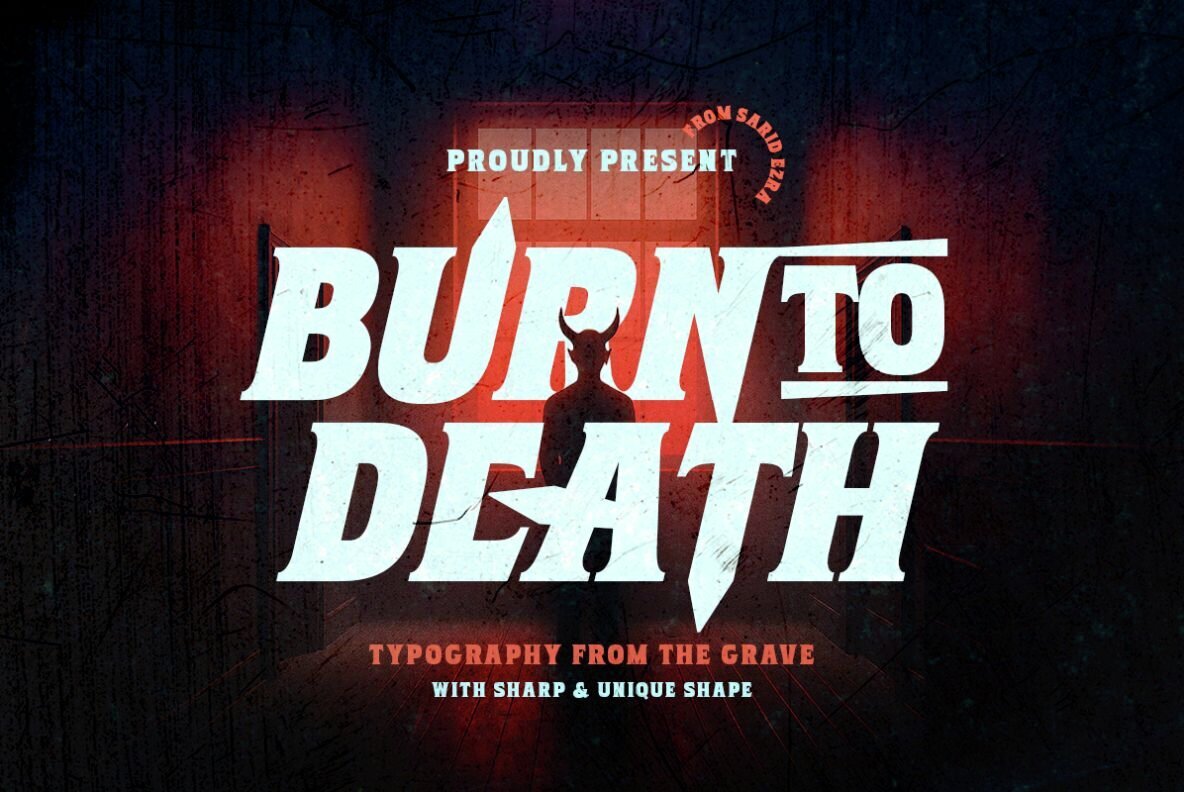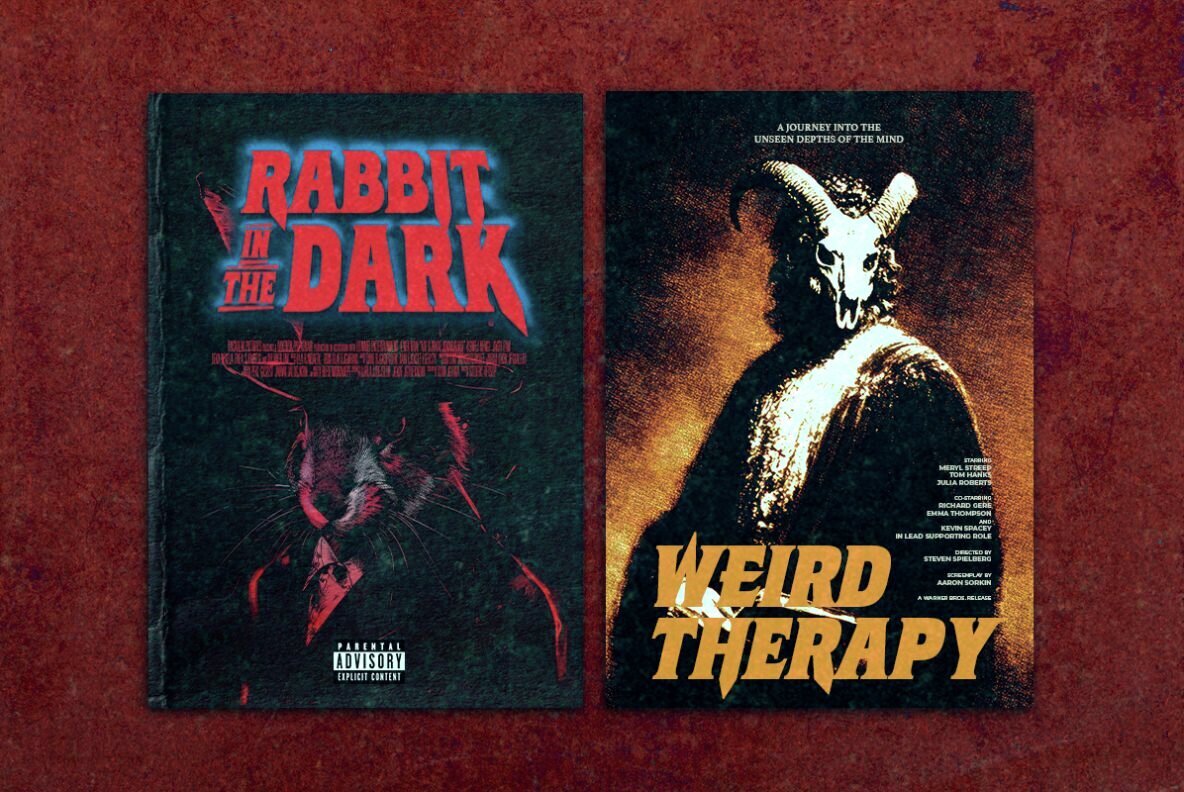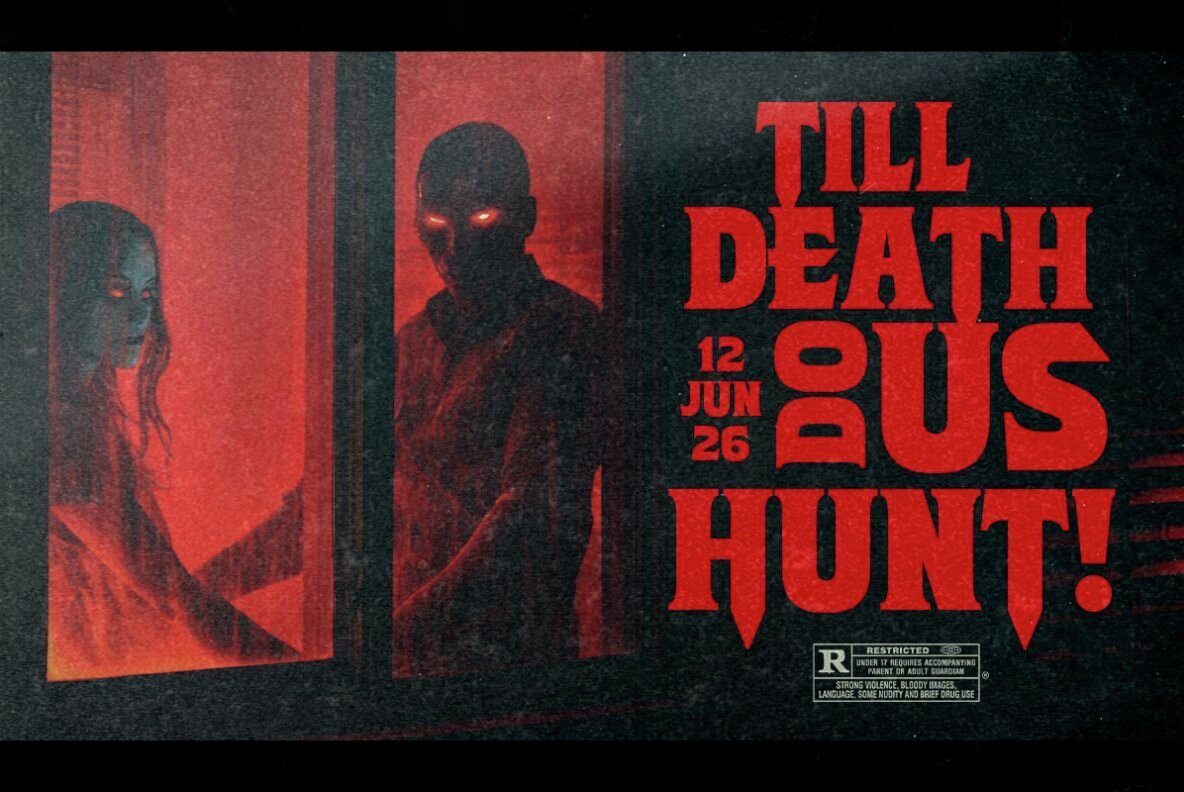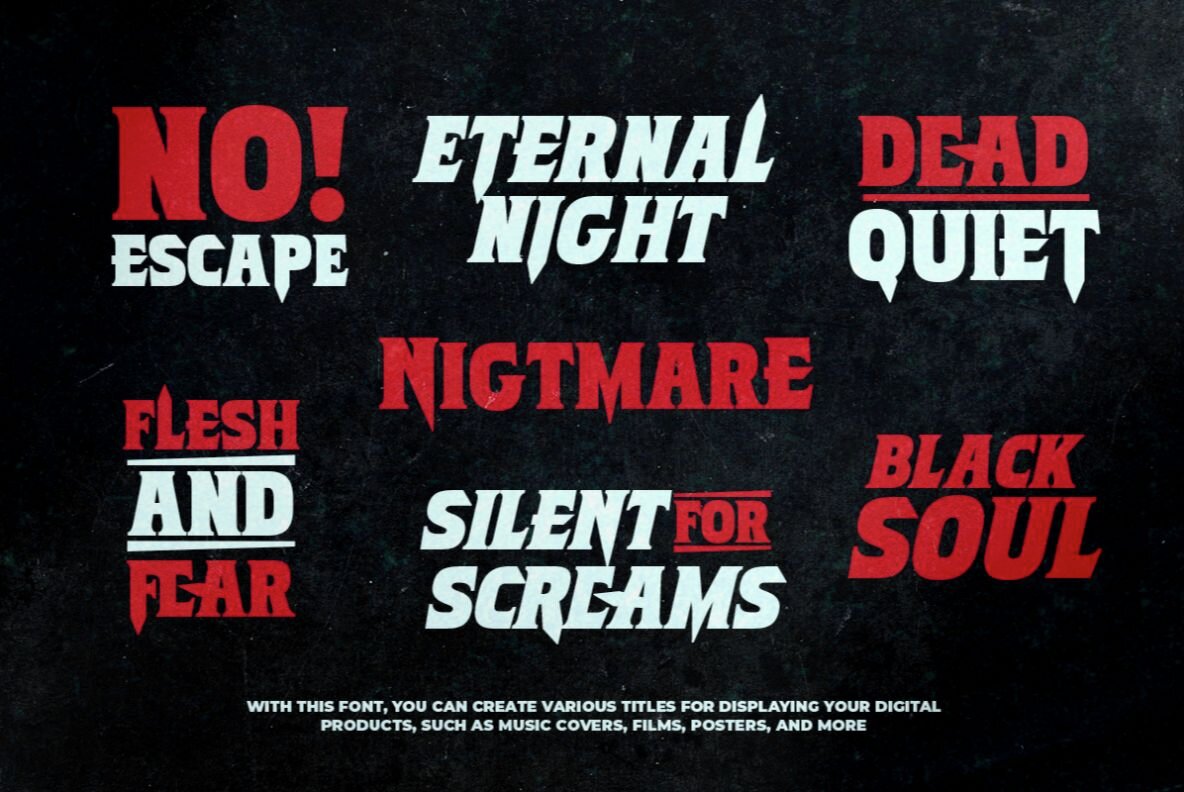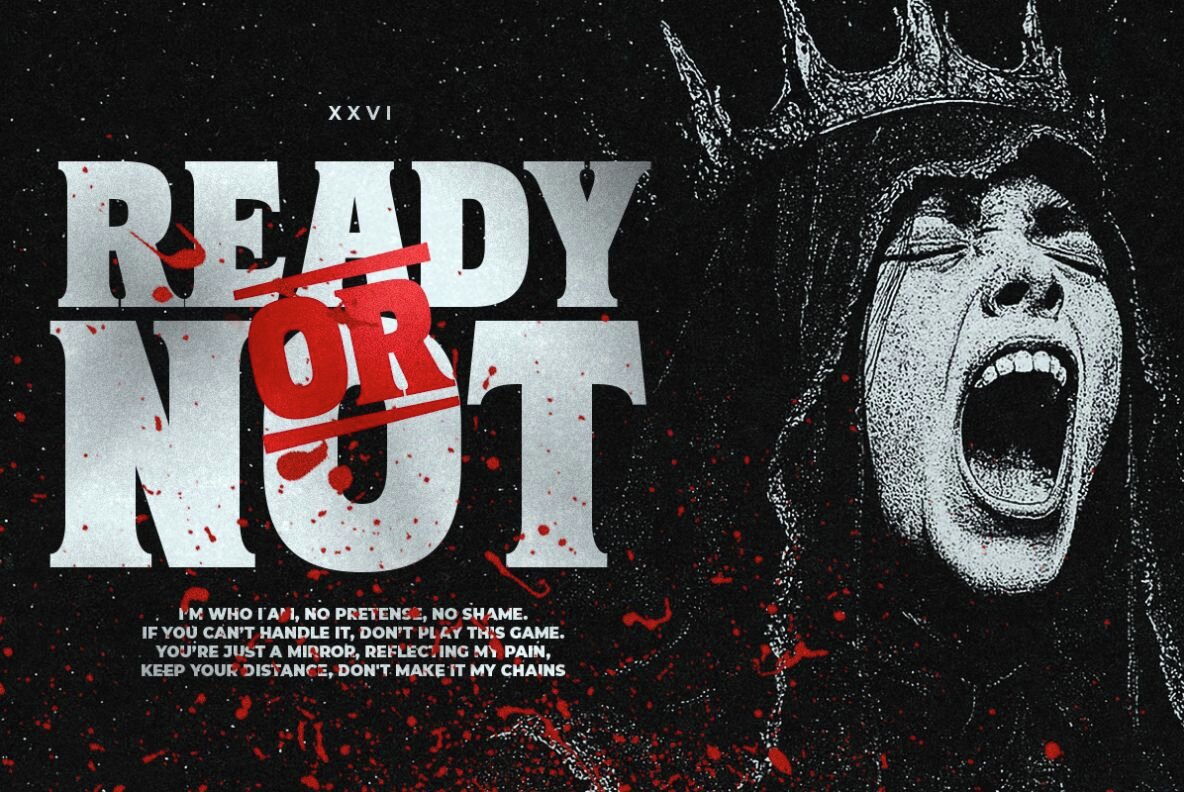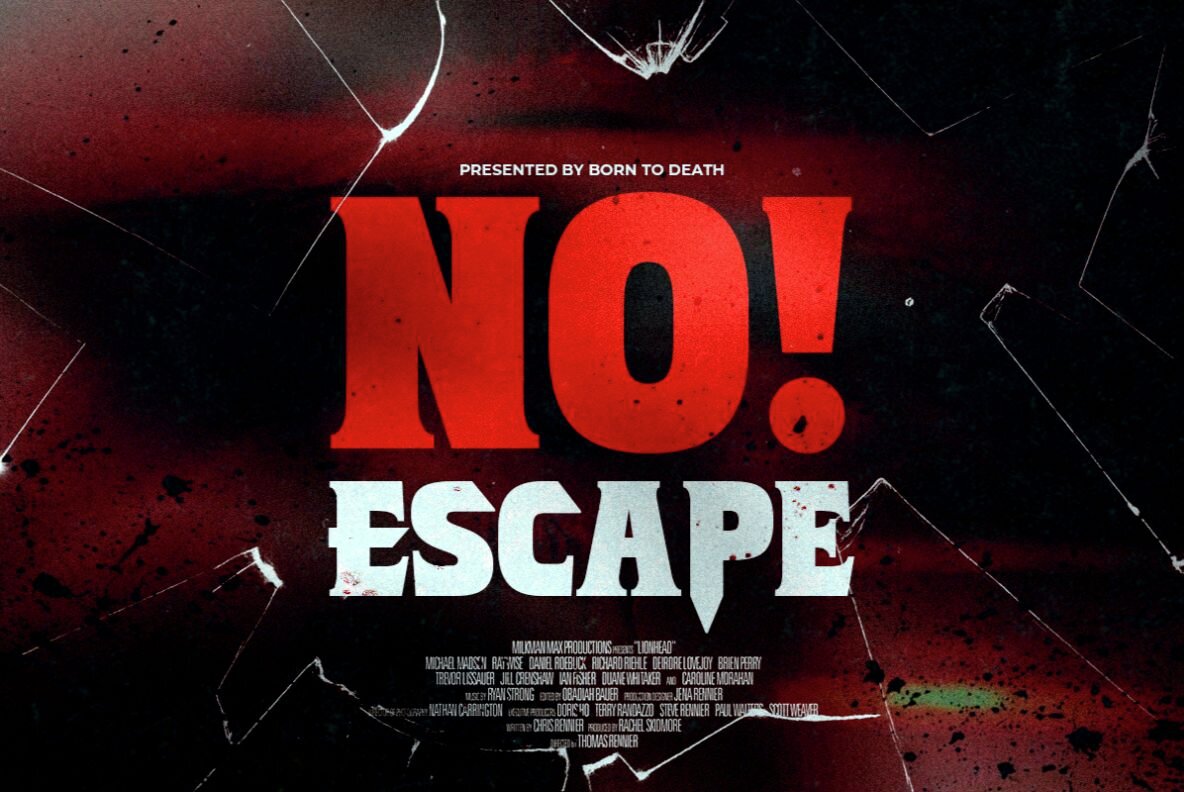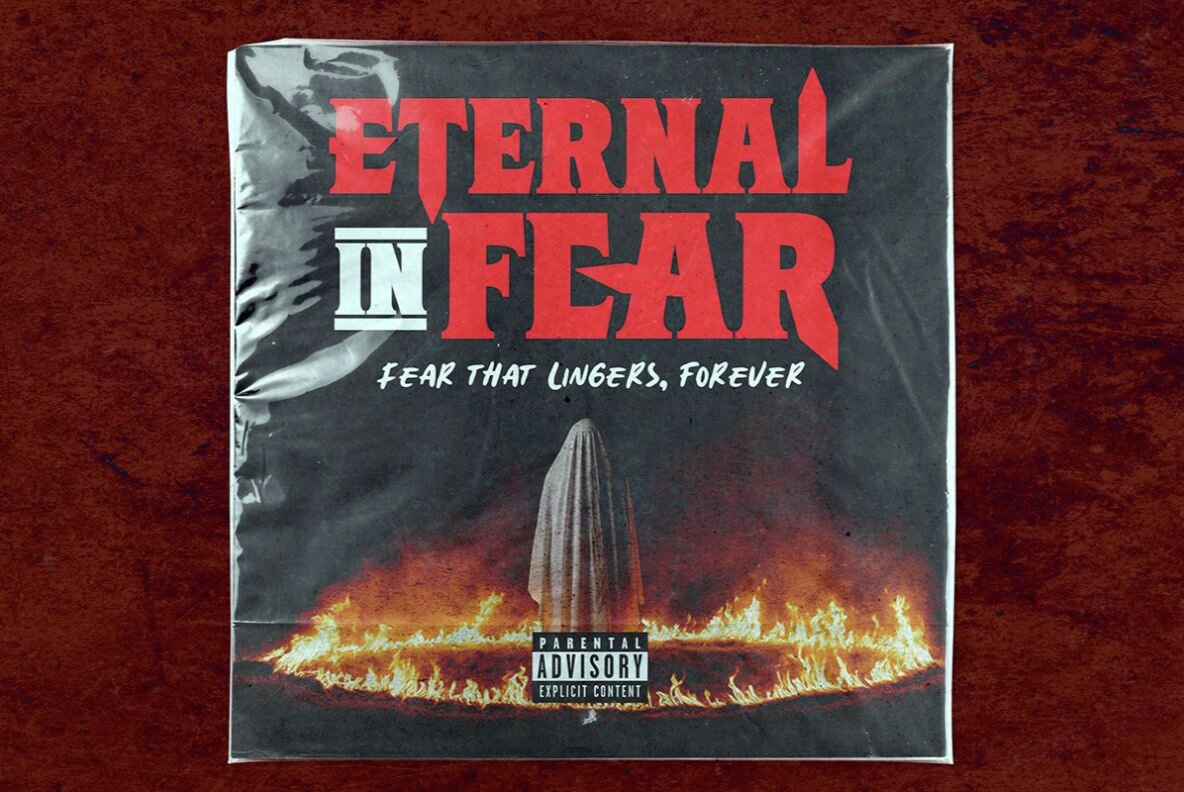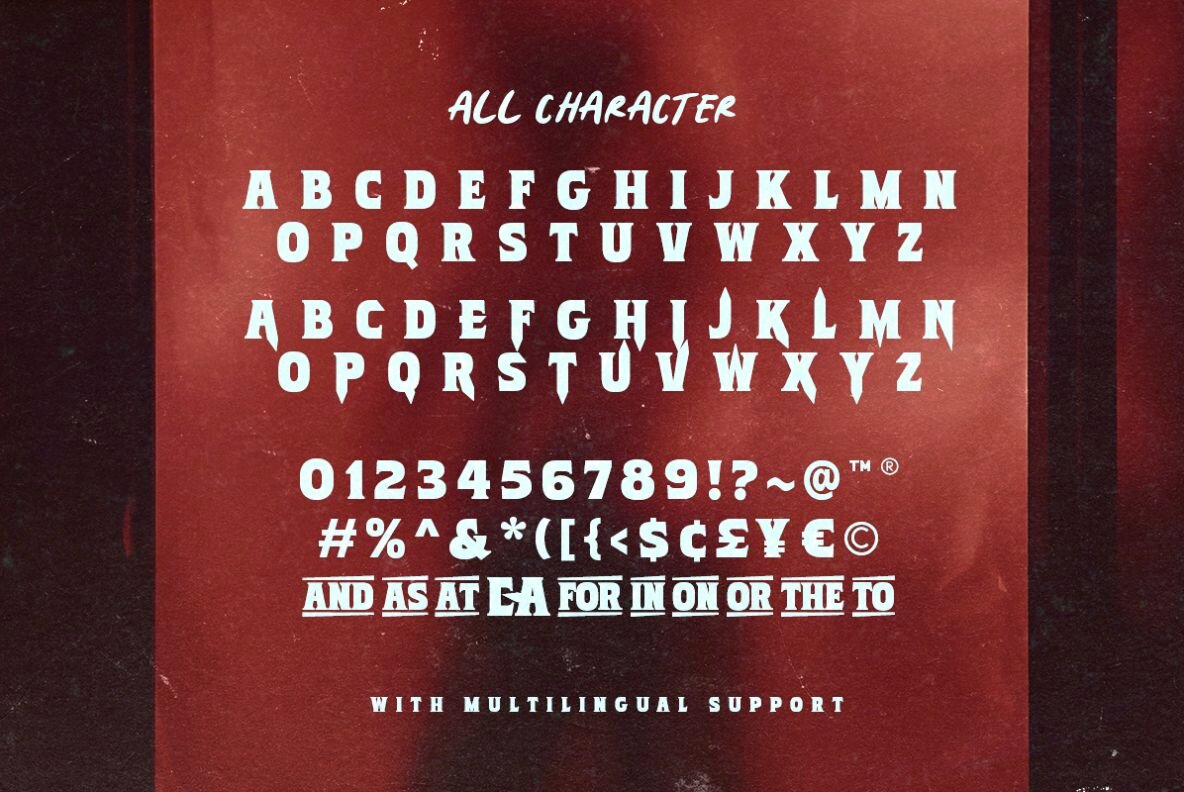
Burn to Death Font
Burn To Death Regular
Burn To Death Italic
Step into a world of eerie elegance with Burn to Death, the horror serif font that embodies a chilling, gothic allure. Its sharp, bold design evokes a sense of haunting vintage mystery, making it ideal for captivating headlines, eerie invitations, and horror movie posters. Whether you're working on Halloween-themed projects or creating designs that demand an ominous touch, this typeface delivers.Burn to Death: A Haunting Serif Typeface